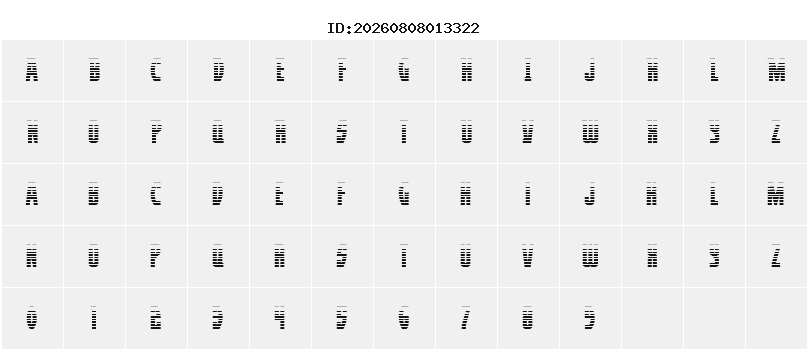
• Font Name: Prowler Gradient
• Full Font Name: Prowler Gradient Regular
About Prowler Gradient.ttf
Prowler Gradient.ttf is a modern, elegant sans-serif font designed for ultimate readability and visual harmony. Perfect for branding, headlines, web design, and print materials.